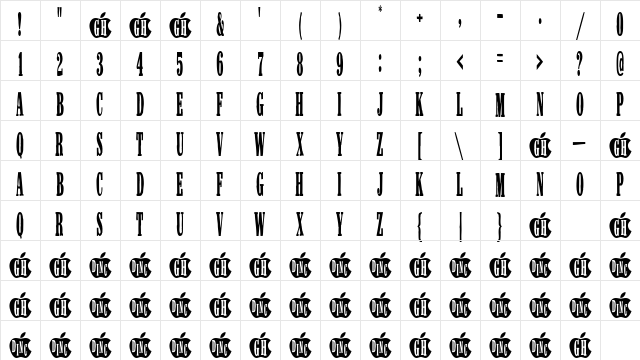
AppleScruffs Regular
Design Context for AppleScruffs Typeface
AppleScruffs offers clean, dependable letterforms without strong stylistic allegiance, making it a practical choice for designers who need flexibility.
Pro Tip: Pair AppleScruffs with a font of contrasting weight or personality to build a more expressive typographic hierarchy.